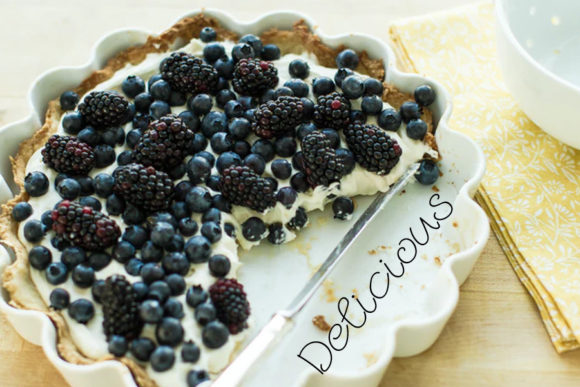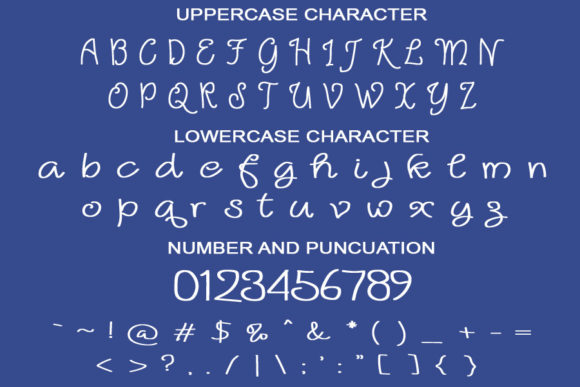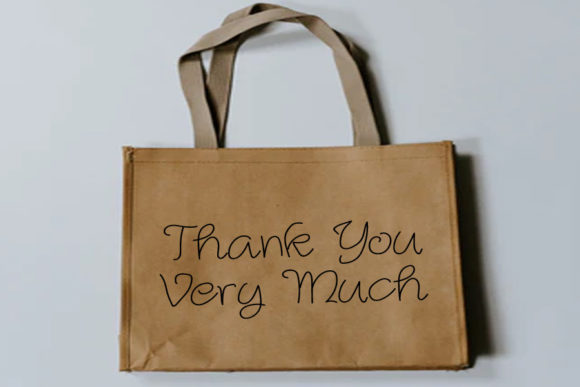
The Perfect Scoop of Creativity: Blueberry Font
Have you ever been brainstorming a new project and suddenly, the perfect idea hits you like a burst of sunshine on a summer morning? It’s that feeling of pure creative bliss, where the world seems to come alive with possibilities. And what better way to capture that magic than with the perfect font?
Enter the Blueberry Font, a charming and playful script font that’s sure to add a touch of whimsy to your most creative ideas. With its thin lettered characters that seem to dance along the baseline, this font is the perfect addition to any designer’s toolkit. Whether you’re creating a logo, a brochure, or a social media campaign, the Blueberry Font is sure to make your designs stand out from the crowd.
Blueberry Font Key Features
- Font Family: Blueberry is a unique, hand-drawn font family that offers a playful and modern feel.
- Unique Characteristics: Features a distinctive, hand-drawn aesthetic with irregular strokes and subtle texture, adding a touch of personality to designs.
Designer Review: Blueberry Font
Overall, I’d say the Blueberry Font is a solid addition to any design project. It has a certain charm that can add a touch of playfulness to your work. ✨
- Unique Character Set: The font’s unique character set, including its uppercase and lowercase letters, numbers, and punctuation marks, adds to its quirky charm.
- Playful Feel: The font’s overall feel is playful and fun, making it perfect for projects that require a lighthearted tone.
- Good Legibility: Despite its playful nature, the font remains relatively easy to read, making it a good choice for body text.
- ⚠️ Limited Font Sizes: The font starts to lose its charm and becomes difficult to read when enlarged to font sizes above 24pt.
- ⚠️ Not Ideal for Formal Text: Due to its playful nature, the font may not be the best choice for formal or professional projects.
Overall, I’d give the Blueberry Font 4 out of 5 stars. It’s a great choice for projects that require a lighthearted and playful tone, but it may not be the best fit for more formal or professional projects.
For best results, use Blueberry Font in designs that require a playful and youthful feel. Pair it with bold colors and fun graphics to create eye-catching visual elements.
Blueberry Font is ideal for:
– Food and beverage branding
– Children’s educational materials
– Casual blog posts and articles